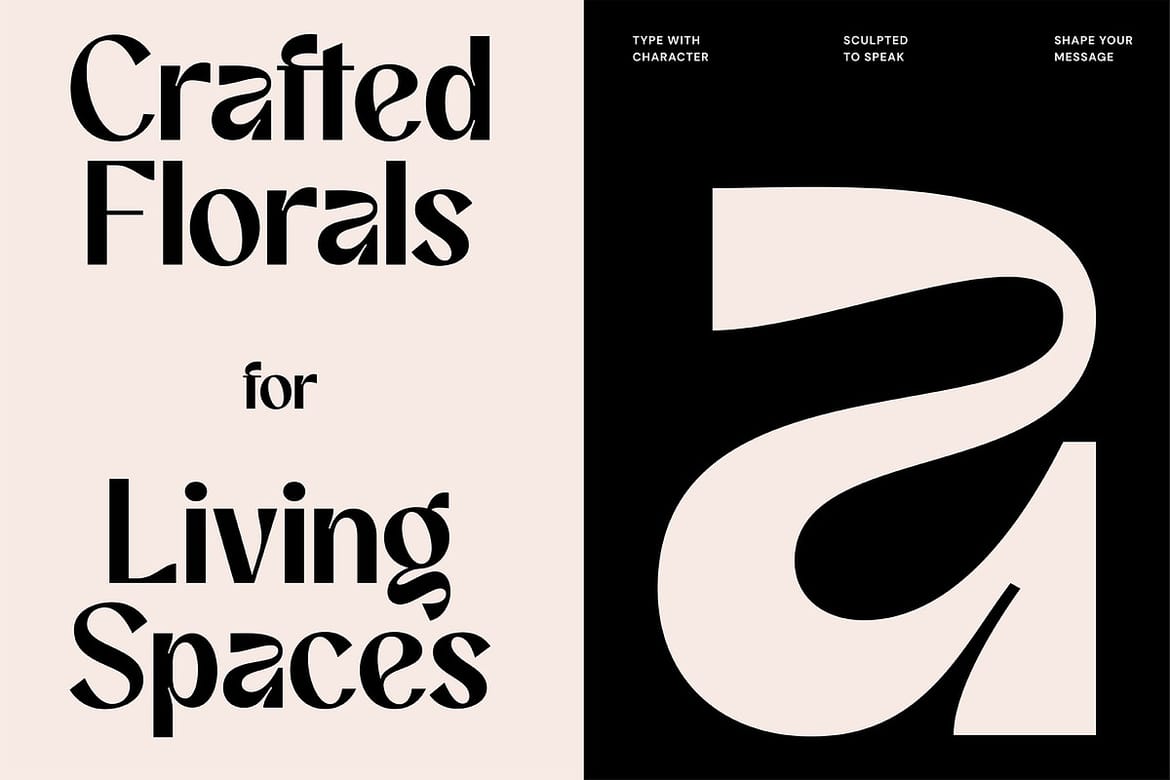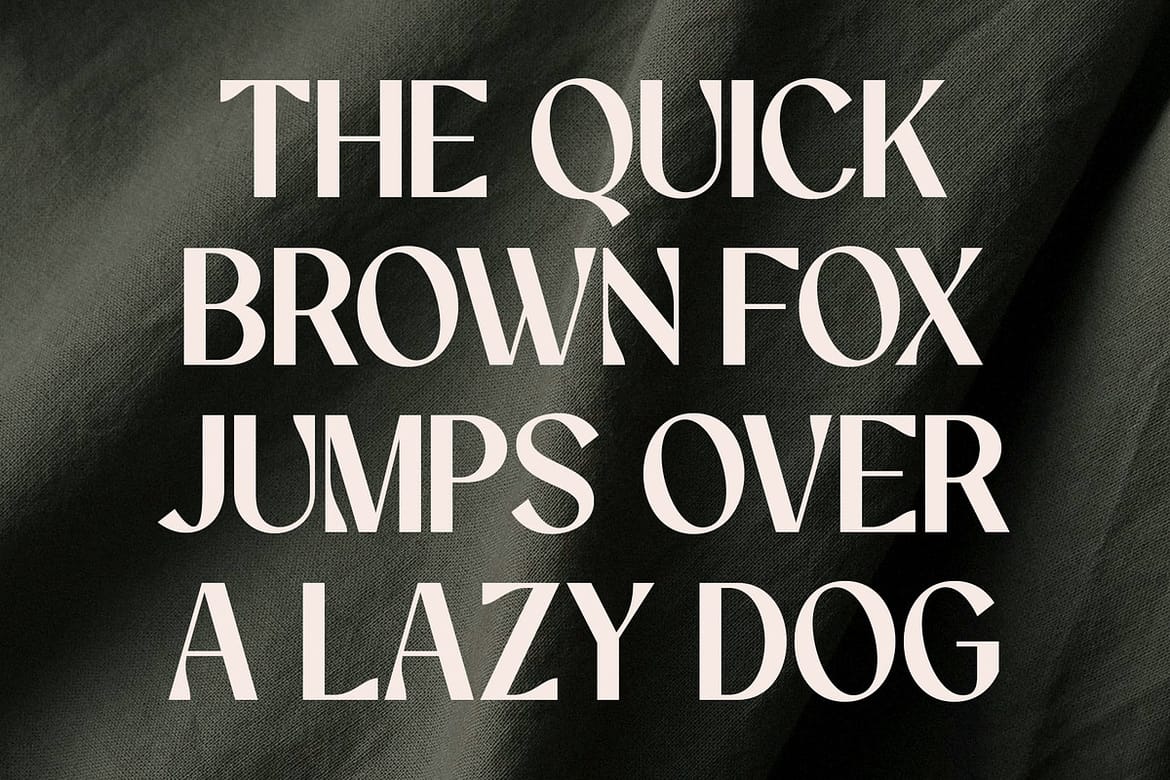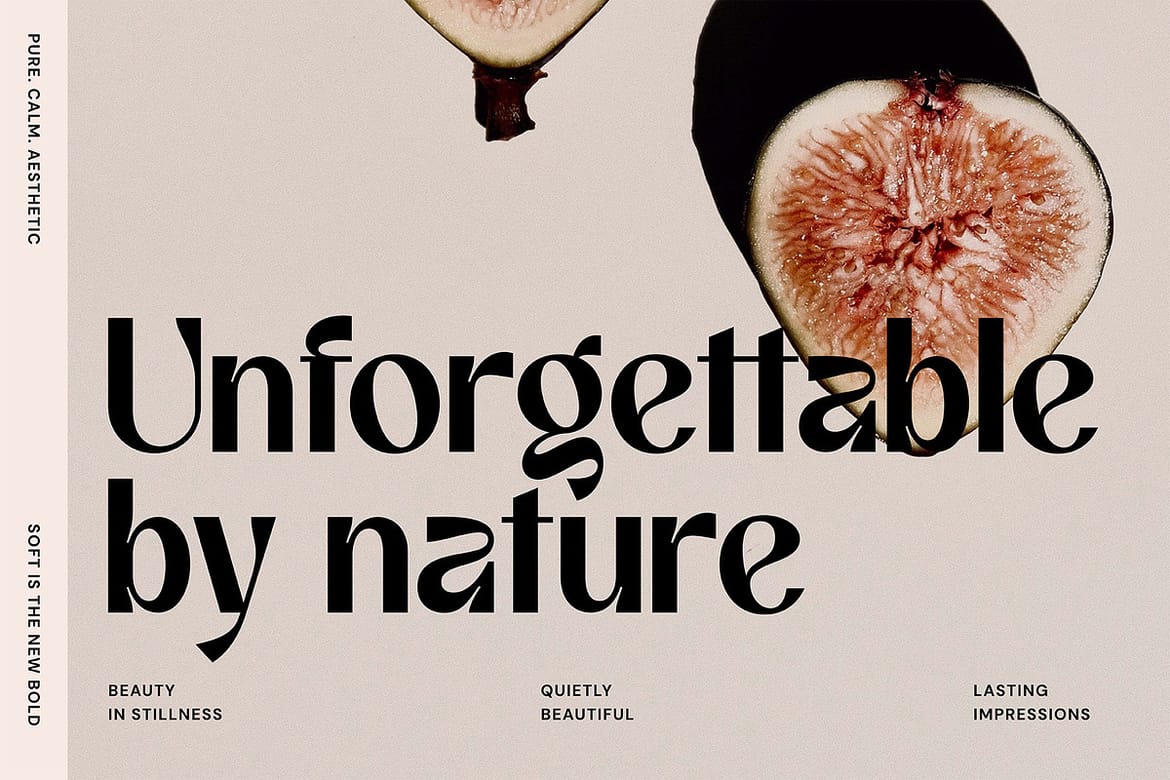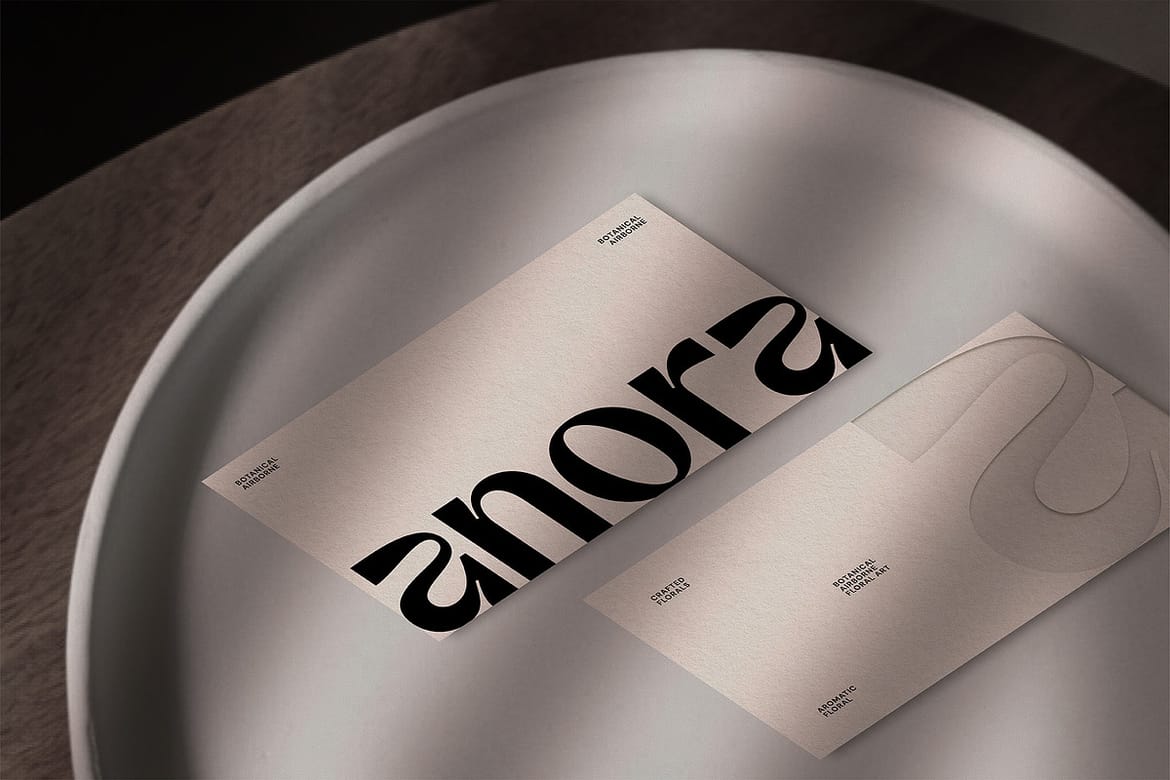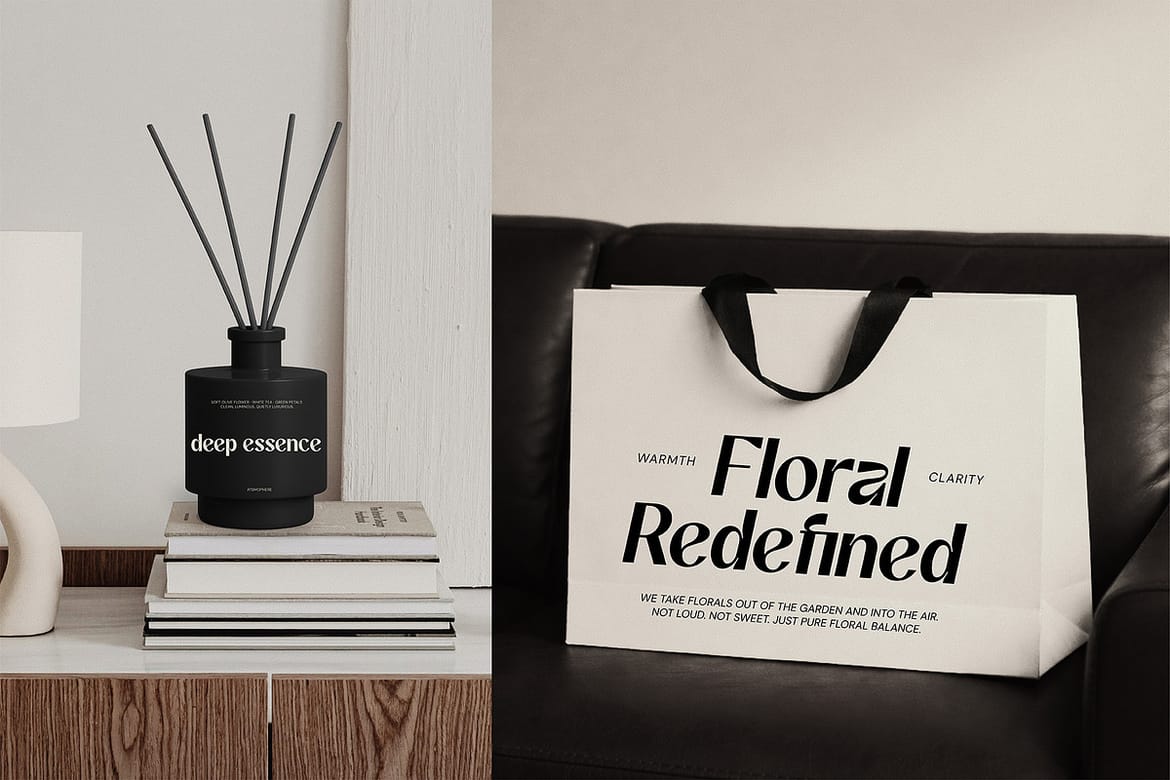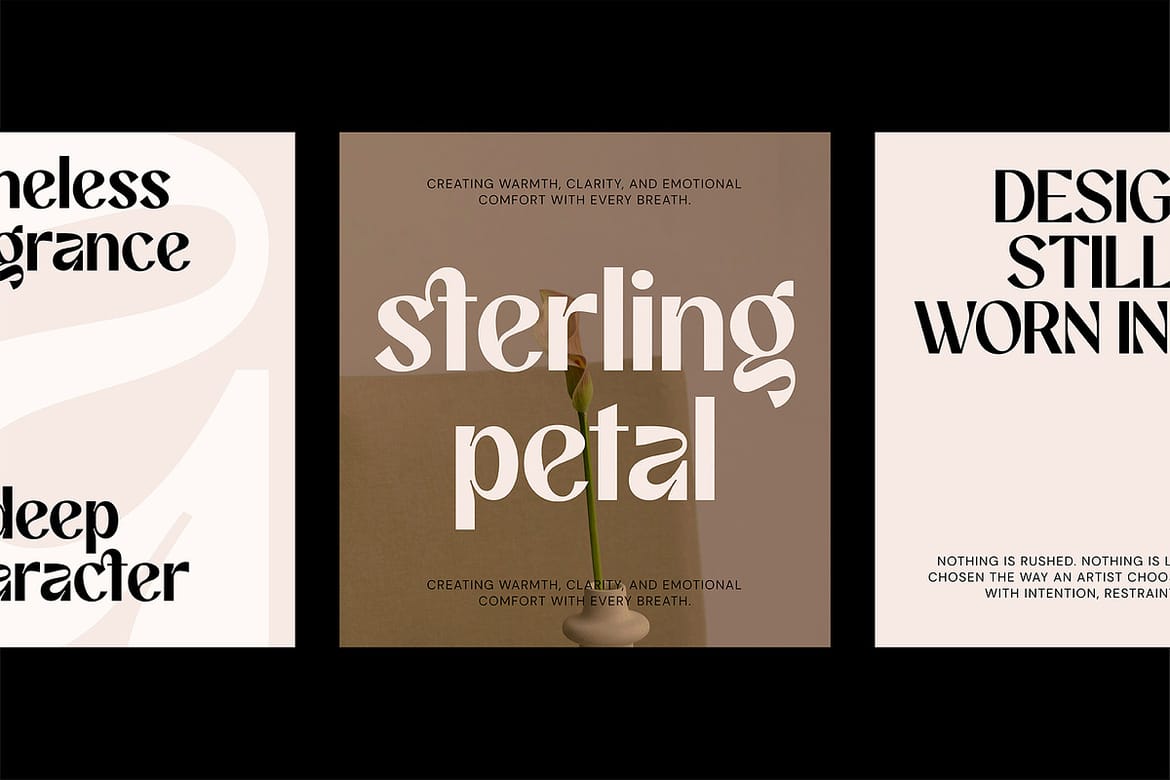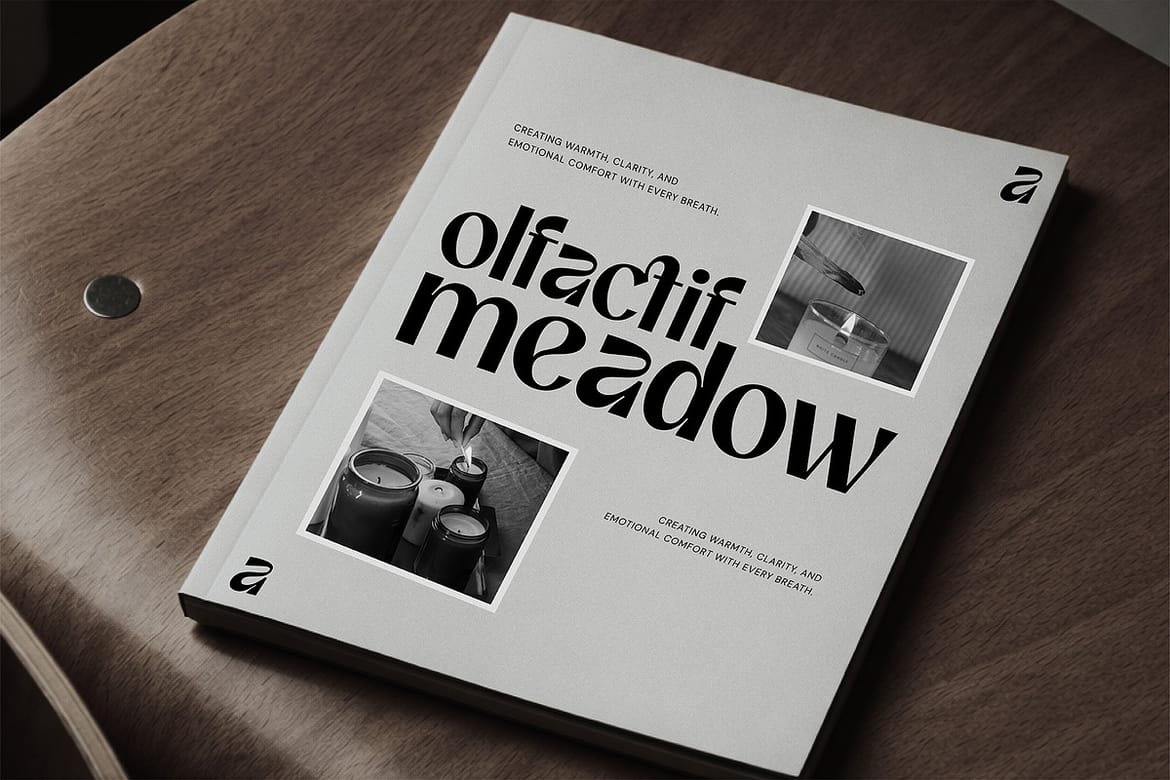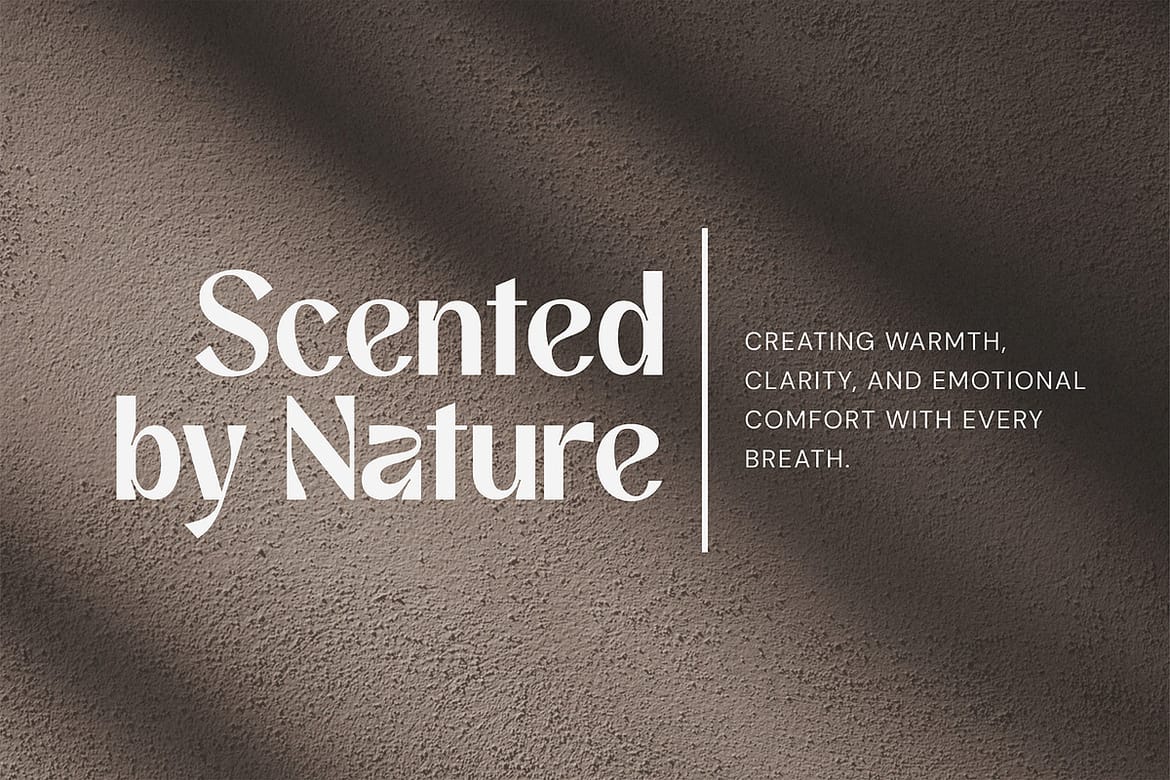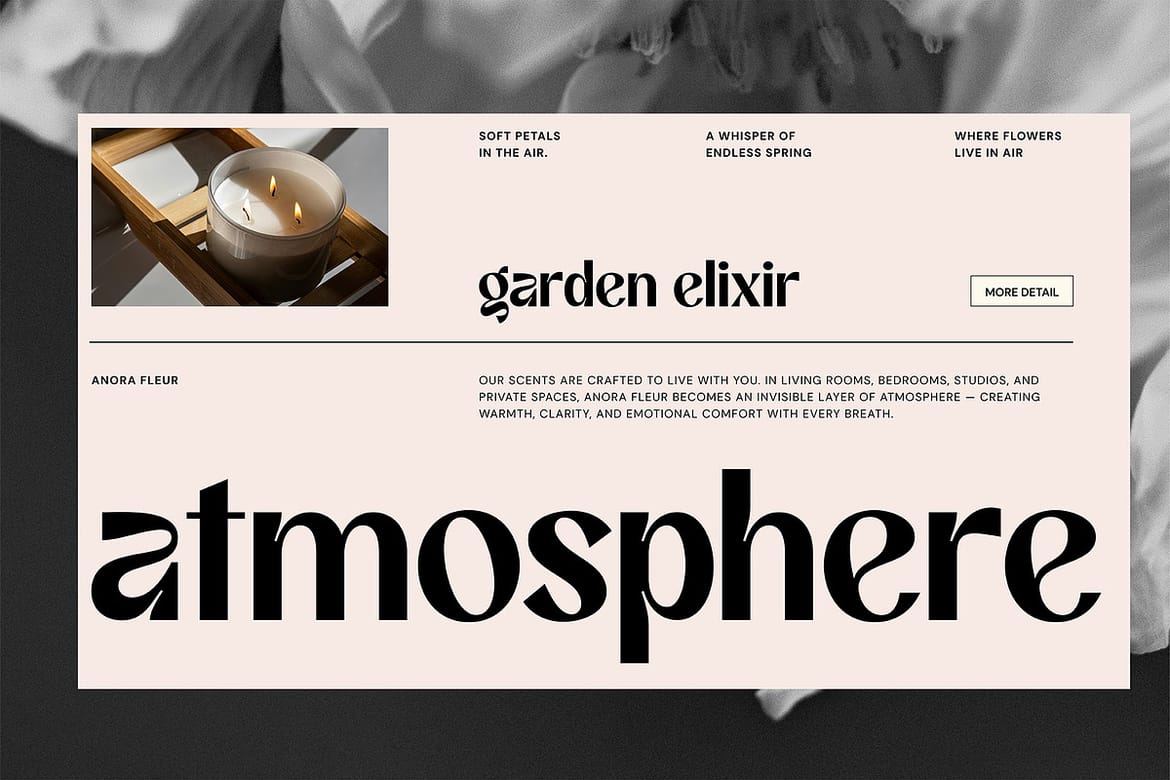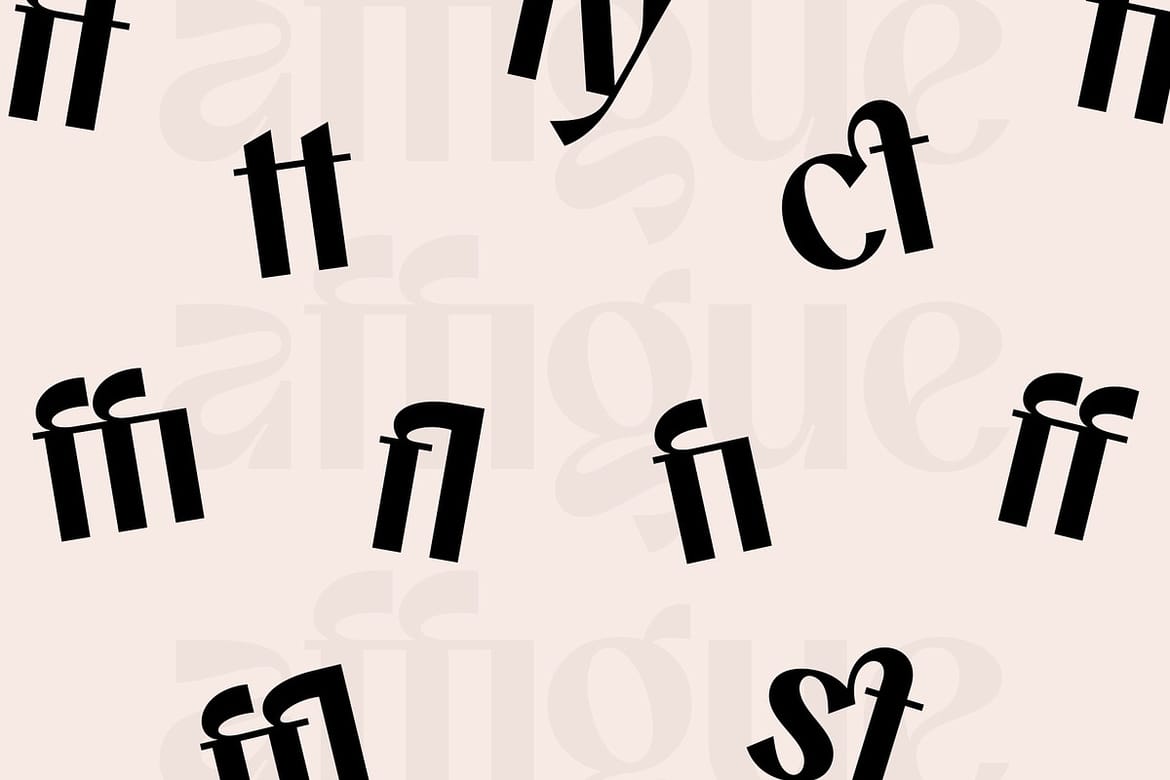
Affigue is a modern clean sans serif display typeface designed with an elegant and luxurious character. It features unique letterforms with smooth curves and refined proportions, making it perfect for high-end visual communication.
Affigue works beautifully for fashion branding, editorial layouts, luxury logos, posters, magazine covers, beauty products, and modern advertising. Its bold yet soft appearance creates a strong visual identity while maintaining a clean and contemporary feel.
This typeface is crafted to stand out in large sizes, delivering a confident, stylish, and premium impression for creative projects that demand sophistication.
Designed by Typoraith Co, Affigue is a versatile display typeface that elevates your designs with a timeless yet contemporary aesthetic.
- Modern clean sans serif display font
- Smooth curves with refined proportions
- Perfect for fashion and luxury branding